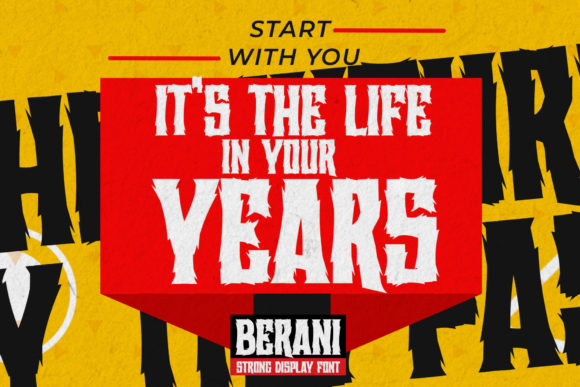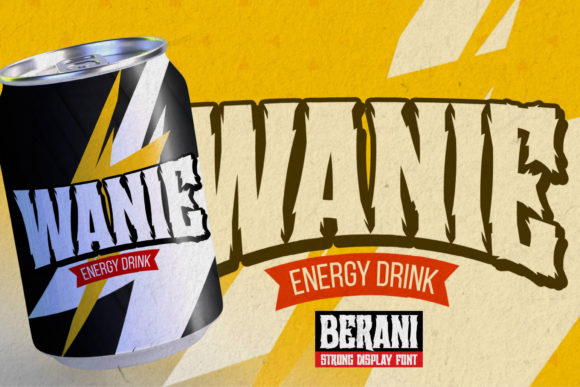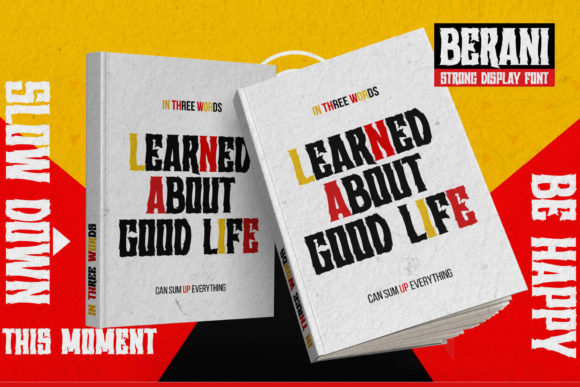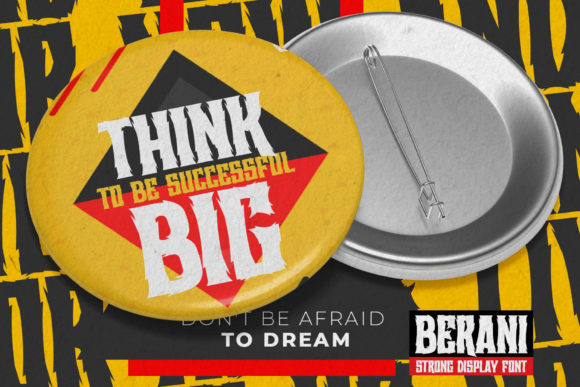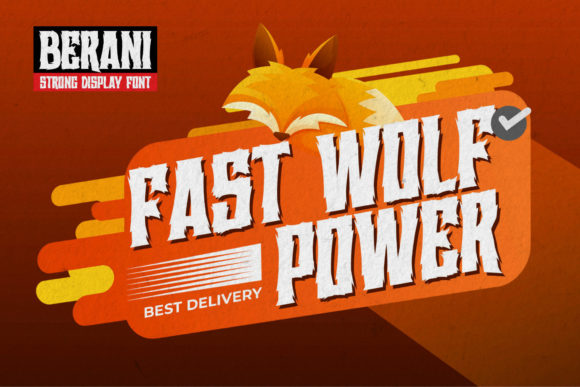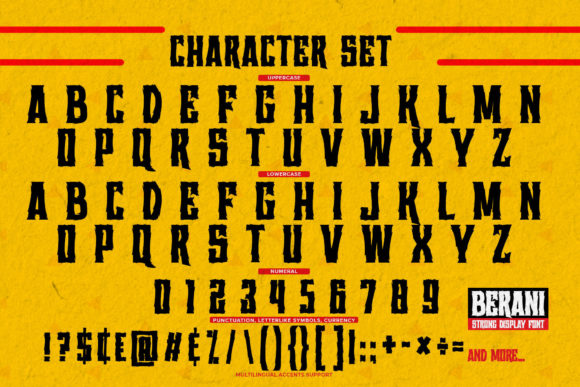
Unleash Your Creativity with Berani Font
There’s nothing quite like the thrill of bringing a new design idea to life. You’re brainstorming, sketching, and experimenting with different fonts, colors, and textures – and suddenly, it all comes together in a beautiful, cohesive vision. For many designers, this is the moment that makes all the hard work worth it. But what if you had the perfect font to elevate your project to the next level? Enter the Berani Font, a cool, vintage-styled display font that’s sure to add a touch of sophistication and charm to any creative project.
With its rough, textured look, Berani Font is the perfect choice for designers who want to add a bit of edge to their work. Whether you’re creating a bold advertisement, a striking poster, or a unique branding identity, Berani Font is sure to deliver. And with its versatility and ease of use, it’s a valuable addition to any designer’s toolkit.
- Unique Characteristics: Berani Font features a unique blend of modern and traditional elements, making it perfect for creating eye-catching designs.
Designer Review: Berani Font
Overall, I have mixed feelings about the Berani Font. While it’s a great font for certain projects, it’s not without its limitations. ✨ One thing that stands out is the font’s unique personality – it’s bold, playful, and energetic, making it perfect for projects that need a bit of edge.
- ✨ The font’s bold and condensed style makes it ideal for use in headings and titles.
- ✨ The font’s unique characters and ligatures add a touch of personality to text.
However, there are some limitations to the Berani Font that need to be considered. ⚠️ The font can be quite difficult to read at smaller sizes, which may limit its use in certain contexts.
- ⚠️ The font’s condensed style can make it difficult to read at smaller sizes.
- ⚠️ The font may not be suitable for use in body text, as it can be tiring to read.
Overall, the Berani Font is a great choice for projects that need a bold and playful touch, but it may not be the best choice for every project. With careful consideration of its limitations, it can be a valuable addition to any designer’s toolkit.
Tips for Getting the Most Out of Berani Font
Use Berani Font for headings and titles to create a bold and eye-catching effect.
Pair Berani Font with a sans-serif font for body text to create a clean and modern design.
Experiment with different font sizes and colors to create a unique and personalized look.
Use Berani Font for:
Headings and titles in brochures, flyers, and posters.
Brand logos and identity design.
Web design and digital marketing materials.